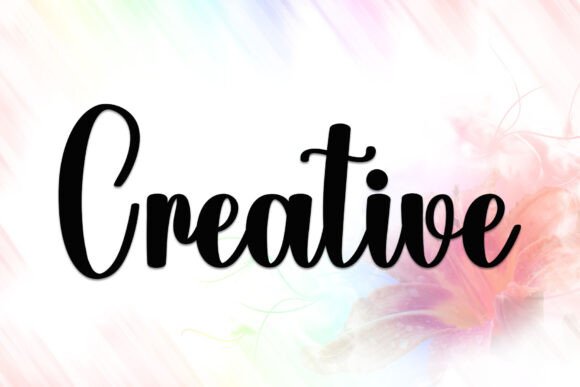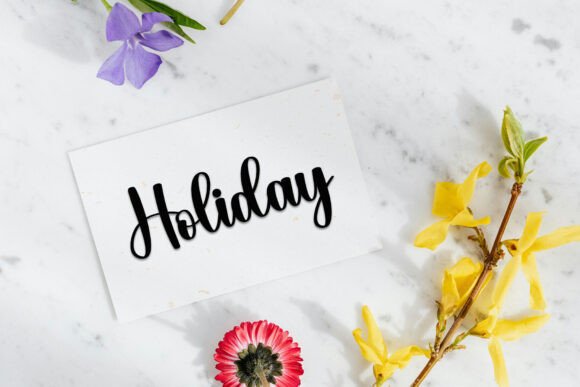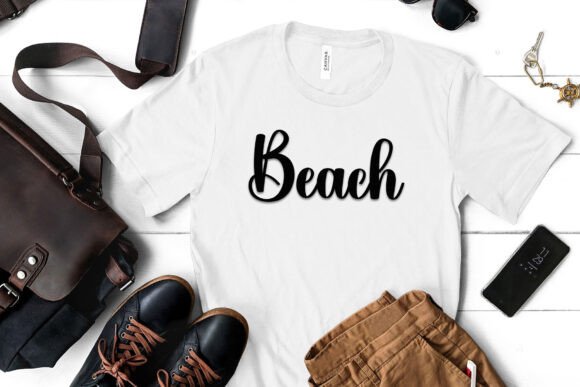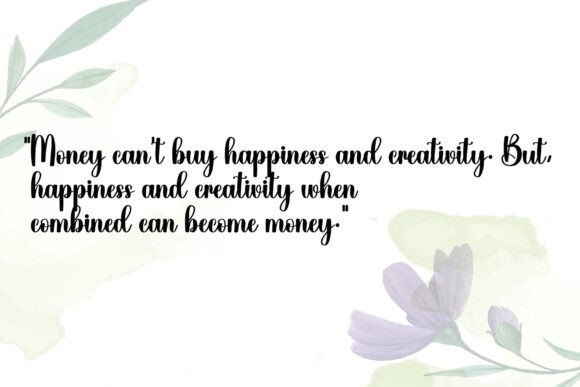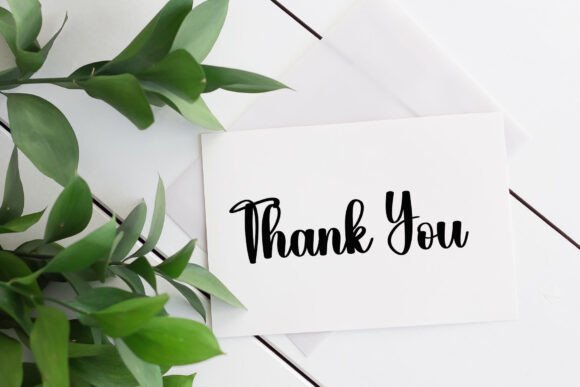
Bunny Font: Elevate Your Designs with Elegance and Class
In the world of typography, fonts play a crucial role in conveying the tone and personality of a design. For designers and crafters looking to add a touch of sophistication and elegance to their projects, the Bunny Font is an excellent choice. This trendy handwritten font boasts a contemporary atmosphere and impeccable form, inspired by timeless classic calligraphy.
The Inspiration Behind Bunny Font
Bunny Font draws inspiration from traditional calligraphy, with a modern twist. Its creator aimed to craft a font that would exude elegance and refinement, making it perfect for designs that require a high level of sophistication. The result is a beautiful, handwritten font that is both classic and contemporary.
Key Features of Bunny Font
- Trendy and Modern: Bunny Font has a fresh and modern feel, making it ideal for designers looking to create contemporary designs.
- Handwritten with Flair: The font’s handwritten style adds a touch of personality and warmth to any design.
- Impeccable Form: Bunny Font boasts impeccable form, ensuring that your designs look polished and professional.
- Elegant and Classy: The font’s classic inspiration and modern execution make it perfect for adding elegance and sophistication to your designs.
Uses of Bunny Font
Bunny Font is versatile and can be used in a variety of design projects, including:
- Wedding and Event Designs: Add a touch of elegance to wedding invitations, programs, and other event materials.
- Branding and Packaging: Use Bunny Font to create sophisticated brand identities and packaging designs.
- Stationery and Paper Crafts: Elevate your stationery and paper crafts with the font’s classic and modern style.
- Digital Designs: Bunny Font is perfect for digital designs, such as social media graphics, blog headers, and more.
Tips for Using Bunny Font Effectively
To get the most out of Bunny Font, consider the following tips:
- Pair with Neutral Colors: Combine Bunny Font with neutral colors to let the font be the focal point.
- Experiment with Sizes: Play with different font sizes to create visual interest and hierarchy.
- Add Decorative Elements: Use decorative elements, such as flourishes or graphics, to enhance the font’s elegance.
Bunny Font is a beautiful, trendy handwritten font that is sure to elevate your designs with elegance and class. Its inspiration from timeless classic calligraphy and modern execution make it perfect for a wide range of design projects. Whether you’re a designer or crafter, Bunny Font is an excellent addition to your typography collection.
In conclusion, Bunny Font is a versatile and elegant font that can elevate your designs to the next level. Its unique blend of classic inspiration and modern execution makes it perfect for designers and crafters looking to add a touch of sophistication to their projects.